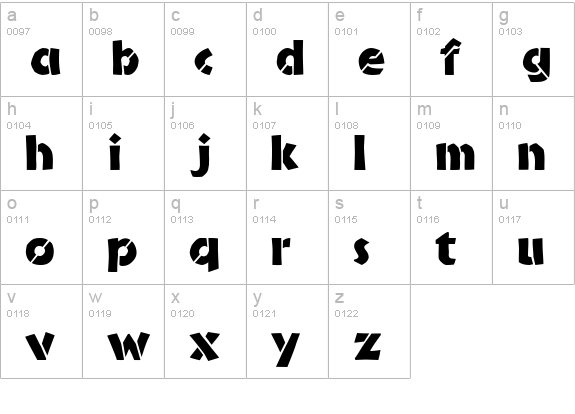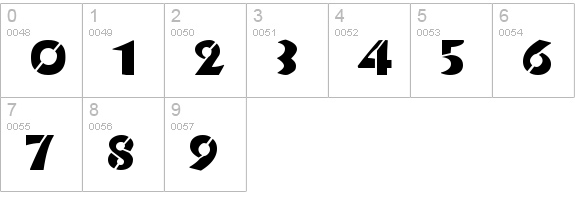
Bride StencilAlt Font Details
Bride StencilAlt font is a stunning display typeface that exudes elegance and sophistication. With its unique stencil design, this font is perfect for adding a touch of charm to any project. The intricate details and stylish curves of Bride StencilAlt make it a versatile choice for a variety of design applications. Best of all, Bride StencilAlt font is completely free to download at FontsMarket.com. This means you can easily access this beautiful typeface and use it in your projects without any cost. Whether you are working on invitations, branding, signage, or any other design project, Bride StencilAlt font is sure to make a lasting impression. Don't miss out on the opportunity to enhance your designs with this exquisite font - download it for free today at FontsMarket.com!